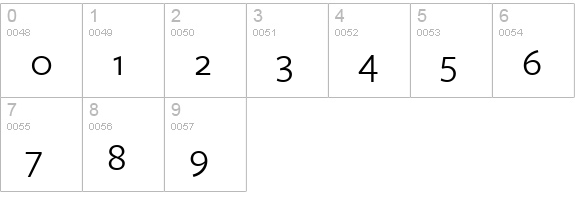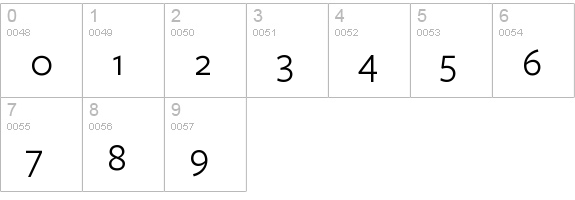
FreightSans Book is a comfortable, highly readable variant in the FreightSans typeface family \xE2\x80\x94 well suited to long-form body text, articles, and editorial content.
FreightSans Book is a modern and versatile font that strikes the perfect balance between professionalism and creativity. With its clean lines and balanced proportions, this typeface is ideal for a wide range of design projects, from branding to editorial design. What sets FreightSans Book apart is its exceptional readability and sleek appearance, making it a popular choice for both print and digital applications. Whether you're designing a website, creating marketing materials, or working on a publication, FreightSans Book is sure to make your text stand out. The best part? FreightSans Book is available for free download at FontsMarket.com, allowing you to access this high-quality font without any cost. Don't miss out on the opportunity to enhance your design projects with the elegance and professionalism of FreightSans Book. Download it today and elevate your typography game!